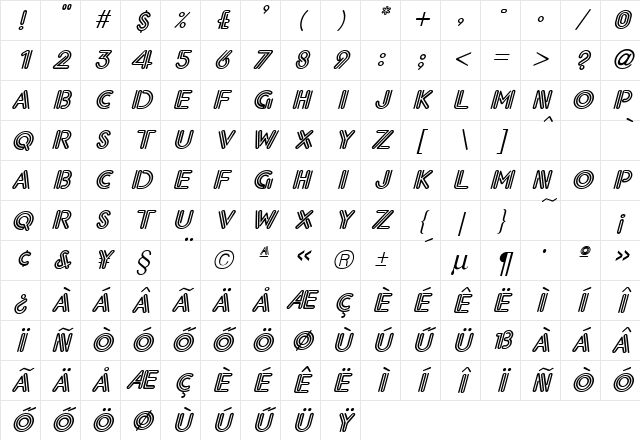
H_Electric Italic
Design Context for H_Electric
H_Electric has a distinctly futuristic character, with geometric precision and clean angles that feel at home in technology, gaming, and sci-fi contexts. The slanted form adds forward momentum and visual energy.
Pro Tip: Try H_Electric with generous letter-spacing in UI labels and navigation - the geometric forms benefit from room to breathe.